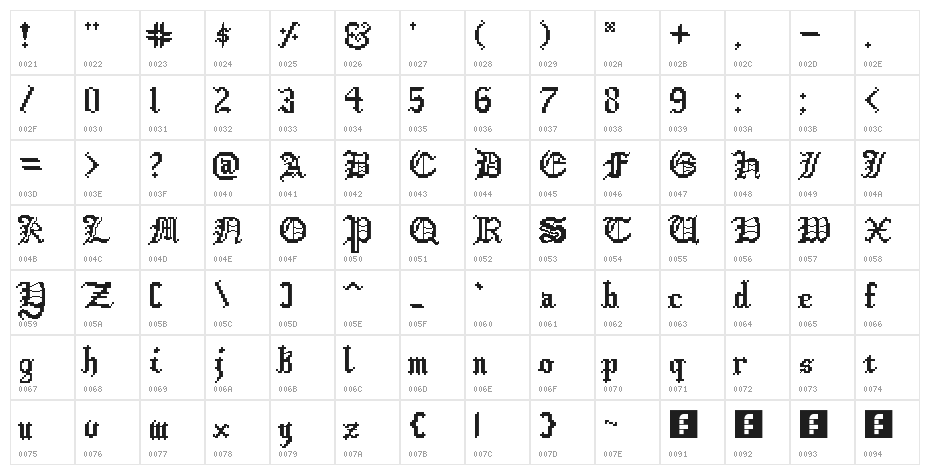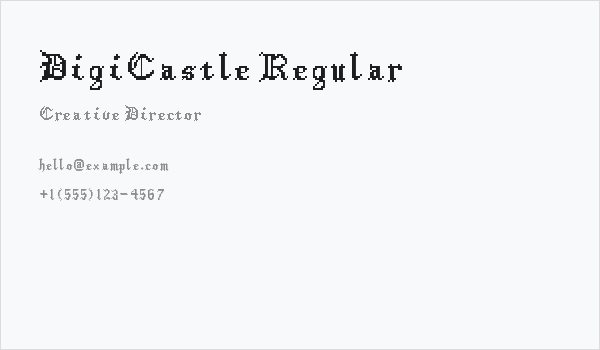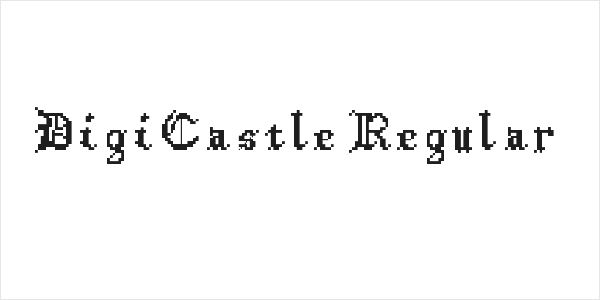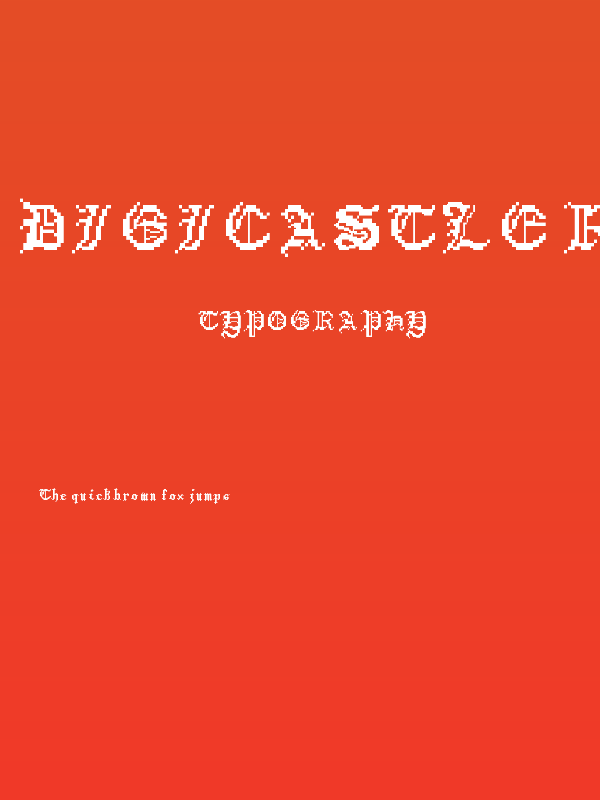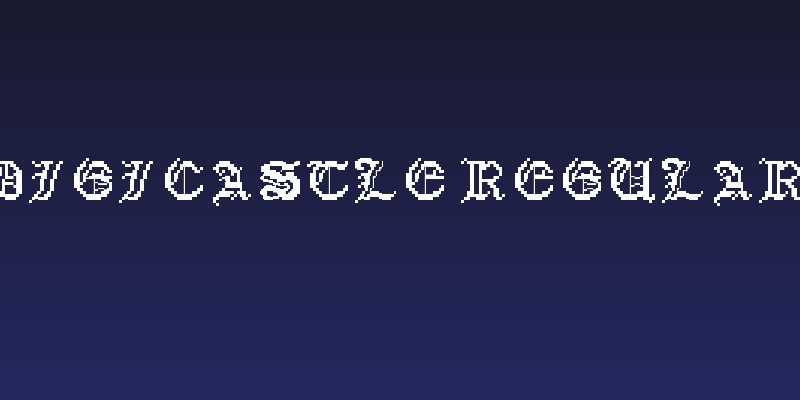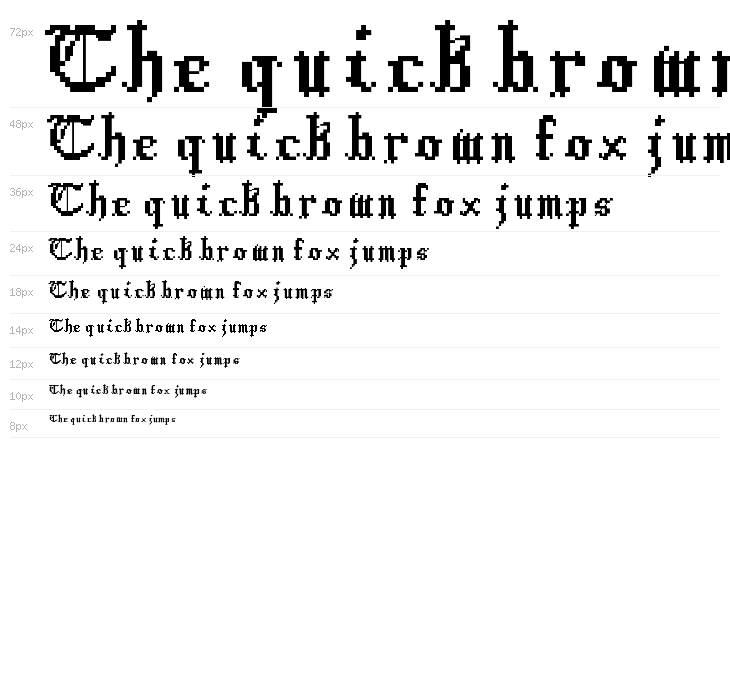
DigiCastle Regular Font
DigiCastle Regular Description
This font features a pixelated, digital aesthetic reminiscent of early computer graphics. The characters are constructed with a blocky, grid-like structure, giving it a retro, video game feel. The uppercase and lowercase letters maintain a consistent style, with sharp edges and uniform stroke widths. Numbers and special characters follow the same design principles, ensuring a cohesive look across all glyphs. This font is ideal for projects that aim to evoke nostalgia or a tech-oriented theme.
| Overall Style | Retro, Digital |
| Use Case | Logos, Posters, Digital Art |
| Proposed Projects | Ideal for video game design, tech-themed posters, retro digital art, and nostalgic branding projects. |